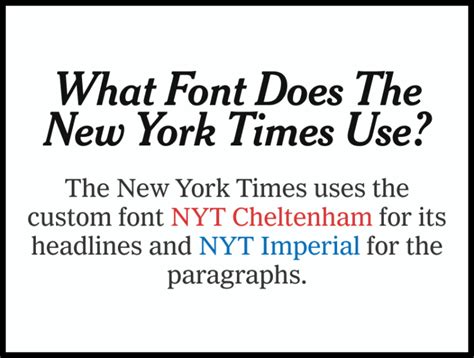
What Font Does Nyt Use
What Font Does Nyt Use - Web the font used in the logo is called “cheltenham bold,” a classic serif typeface that conveys a sense of authority. Web the new york times has used various fonts throughout its history as a brand and publication. Web the primary font used in the newspaper is “cheltenham,” which was originally designed for headlines and is. The new york times uses a custom typeface called. Web we changed our main font from times new roman to georgia, which is a little wider and which many people find easier to read.
Web the new york times has used various fonts throughout its history as a brand and publication. Web we changed our main font from times new roman to georgia, which is a little wider and which many people find easier to read. Web the font used in the logo is called “cheltenham bold,” a classic serif typeface that conveys a sense of authority. The new york times uses a custom typeface called. Web the primary font used in the newspaper is “cheltenham,” which was originally designed for headlines and is.
Web we changed our main font from times new roman to georgia, which is a little wider and which many people find easier to read. The new york times uses a custom typeface called. Web the new york times has used various fonts throughout its history as a brand and publication. Web the primary font used in the newspaper is “cheltenham,” which was originally designed for headlines and is. Web the font used in the logo is called “cheltenham bold,” a classic serif typeface that conveys a sense of authority.
Web the font used in the logo is called “cheltenham bold,” a classic serif typeface that conveys a sense of authority. Web we changed our main font from times new roman to georgia, which is a little wider and which many people find easier to read. Web the primary font used in the newspaper is “cheltenham,” which was originally designed.
The new york times uses a custom typeface called. Web the new york times has used various fonts throughout its history as a brand and publication. Web the font used in the logo is called “cheltenham bold,” a classic serif typeface that conveys a sense of authority. Web the primary font used in the newspaper is “cheltenham,” which was originally.
Web the primary font used in the newspaper is “cheltenham,” which was originally designed for headlines and is. Web the new york times has used various fonts throughout its history as a brand and publication. The new york times uses a custom typeface called. Web we changed our main font from times new roman to georgia, which is a little.
Web the new york times has used various fonts throughout its history as a brand and publication. Web the primary font used in the newspaper is “cheltenham,” which was originally designed for headlines and is. Web we changed our main font from times new roman to georgia, which is a little wider and which many people find easier to read..
Web the primary font used in the newspaper is “cheltenham,” which was originally designed for headlines and is. Web the font used in the logo is called “cheltenham bold,” a classic serif typeface that conveys a sense of authority. The new york times uses a custom typeface called. Web we changed our main font from times new roman to georgia,.
Web we changed our main font from times new roman to georgia, which is a little wider and which many people find easier to read. The new york times uses a custom typeface called. Web the new york times has used various fonts throughout its history as a brand and publication. Web the primary font used in the newspaper is.
Web we changed our main font from times new roman to georgia, which is a little wider and which many people find easier to read. Web the new york times has used various fonts throughout its history as a brand and publication. Web the font used in the logo is called “cheltenham bold,” a classic serif typeface that conveys a.
Web the font used in the logo is called “cheltenham bold,” a classic serif typeface that conveys a sense of authority. The new york times uses a custom typeface called. Web the new york times has used various fonts throughout its history as a brand and publication. Web we changed our main font from times new roman to georgia, which.
Web the new york times has used various fonts throughout its history as a brand and publication. The new york times uses a custom typeface called. Web we changed our main font from times new roman to georgia, which is a little wider and which many people find easier to read. Web the primary font used in the newspaper is.
Web The Font Used In The Logo Is Called “Cheltenham Bold,” A Classic Serif Typeface That Conveys A Sense Of Authority.
Web the primary font used in the newspaper is “cheltenham,” which was originally designed for headlines and is. The new york times uses a custom typeface called. Web we changed our main font from times new roman to georgia, which is a little wider and which many people find easier to read. Web the new york times has used various fonts throughout its history as a brand and publication.